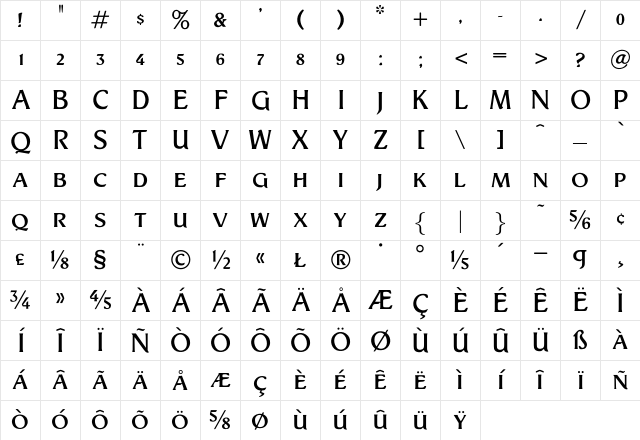
OPTIThaddeusLight-Suppl Regular
Design Context for OPTIThaddeusLight-Suppl
OPTIThaddeusLight-Suppl is a composed and adaptable typeface that performs quietly and consistently across a wide range of design contexts. Its slender proportions lend an understated elegance to any composition.